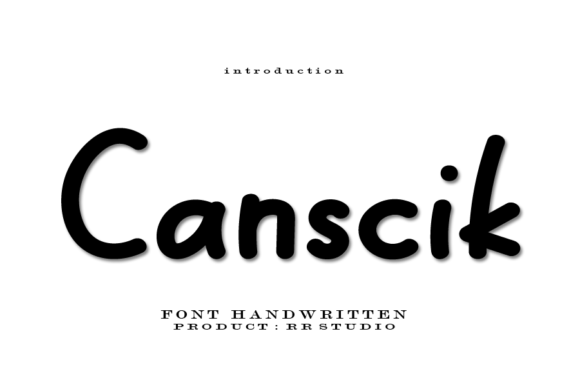
Introducing Canscik Font: The Enchanting Handcrafted Script for Your Creative Journey
Step into the realm of impeccable typography with Canscik Font, a carefully crafted script font that exudes timeless elegance and versatility. Its alluring curves and dynamic strokes are meticulously designed to bring a touch of sophistication and charm to your creative projects.
Immerse yourself in the beauty of this script font, inspired by the magic of handwritten notes. Its effortless flow and organic feel add a personal touch to any design, capturing the essence of genuine expression. Whether you're a seasoned designer or just starting out, Canscik Font is your perfect companion, guiding you towards captivating visuals that leave a lasting impression.
Tailored for a wide range of design endeavors, Canscik Font effortlessly adapts to your creative vision. From enchanting wedding invitations to heartfelt greeting cards, its versatility shines through, making it an indispensable tool for designers of all skill levels.
Embrace the enchanting allure of Canscik Font and let your creativity soar. Its captivating strokes and elegant curves will elevate your designs to new heights, ensuring that your message leaves an indelible mark on your audience. Unleash your imagination and embark on a creative journey like no other, where every stroke tells a story.